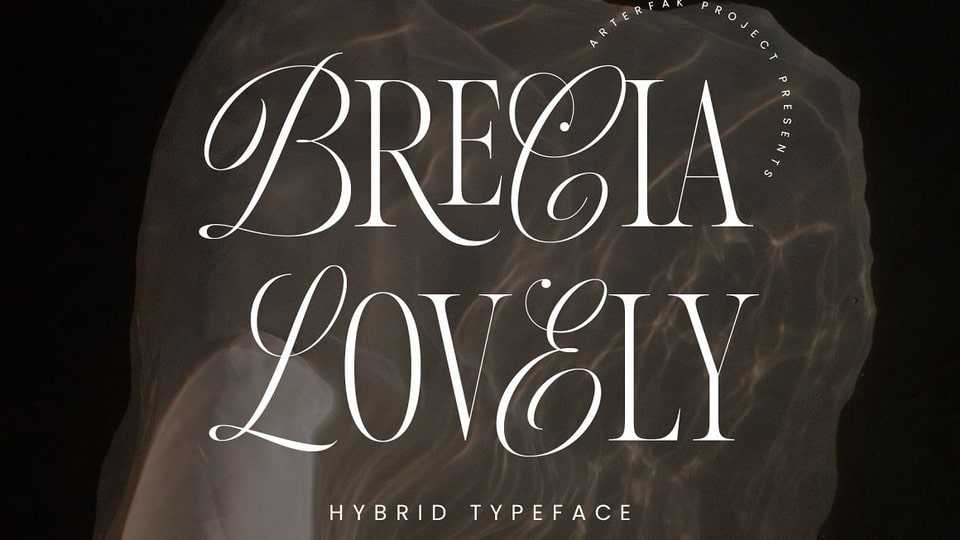
Download Brecia Lovely font, a dynamic, elegant, and luxurious impression display typeface inspired by fashion magazines and modern typography. Brecia Lovely is perfect for posters, flyers, stories, magazines, blogs, editorials, titles, displays, and more.